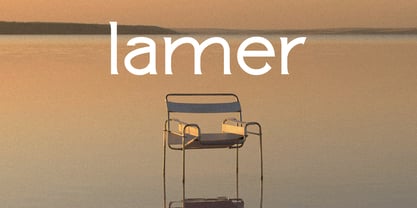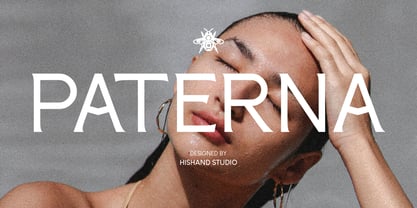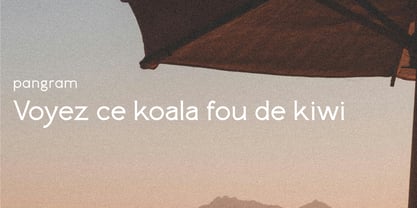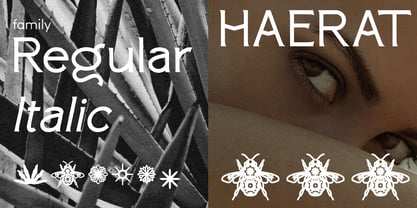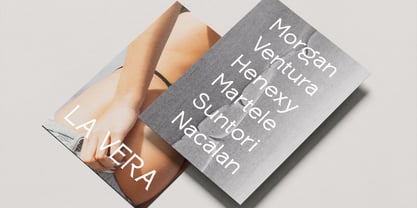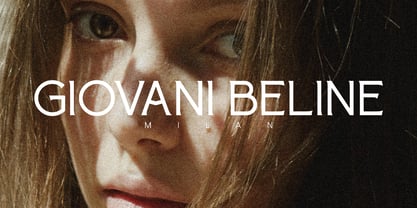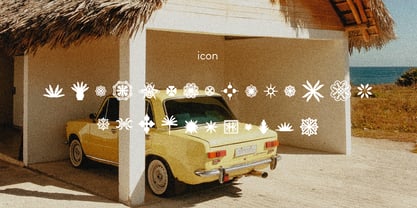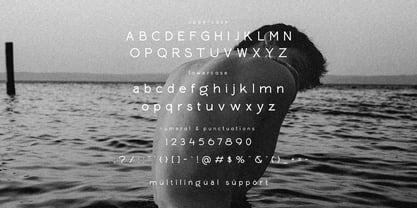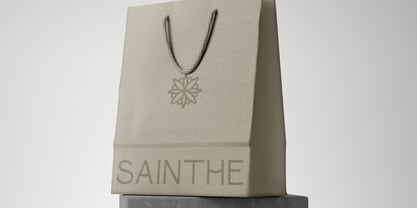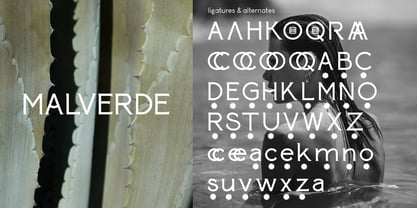
Paterna
The Paterna Font Family was designed by Putu Dody Permana and published by Hishand Studio. Paterna contains 3 styles and family package options. More about this family
Paterna is a newly released serif display font that exudes effortless elegance and refined sophistication. Its carefully crafted letterforms marry classic serif traditions with modern flair, resulting in characters that are at once stately and fresh. Each glyph flows gracefully, with gentle contrast between thick and thin strokes, subtle curves, and delicate serifs that add character without clutter. In headlines or branding, Paterna commands attention with a regal presence, elevating any design with an air of luxury. Whether used for upscale packaging, fashion editorials, high-end invitations, or premium logos, this font immediately communicates sophistication and taste. Its well-balanced proportions and generous spacing ensure outstanding readability while preserving aesthetic appeal. Versatile yet distinctive, Paterna transforms ordinary text into works of art ideal for designers seeking a timeless, luxurious identity for their projects. With full uppercase and lowercase set, numerals and punctuation built with consistency and style, Paterna offers a complete solution for elegant typographic composition. Complete with - ligatures - alternates - regular - Italic - icon - kerning - multilingual support